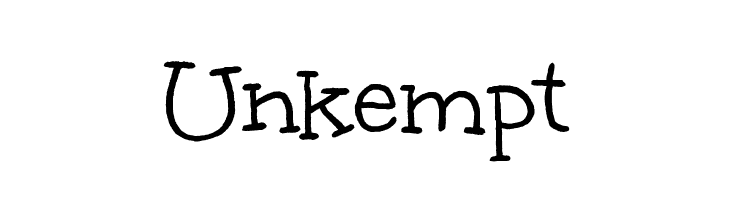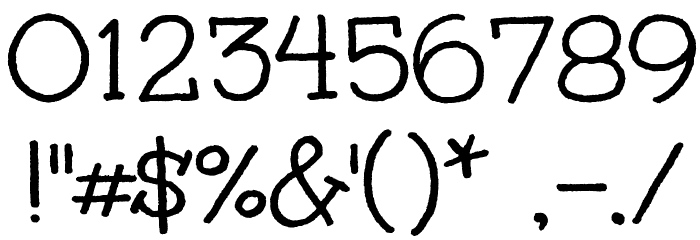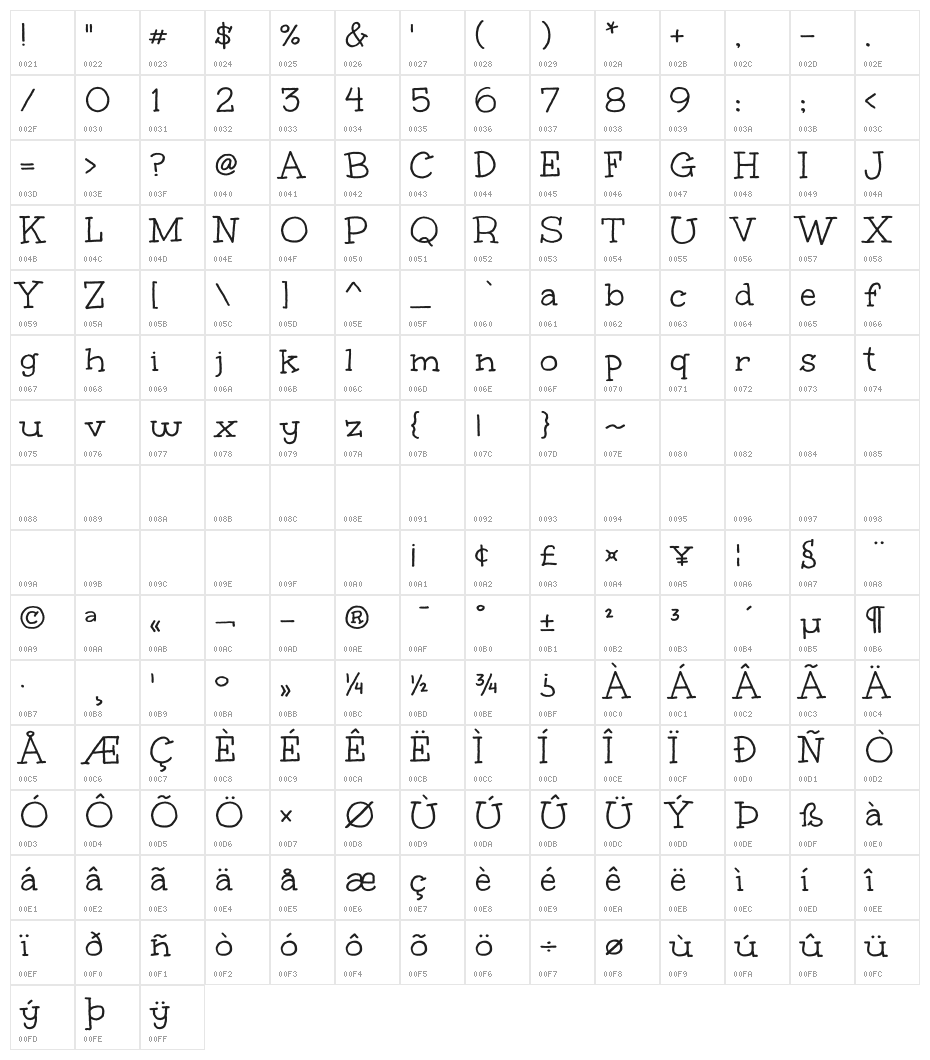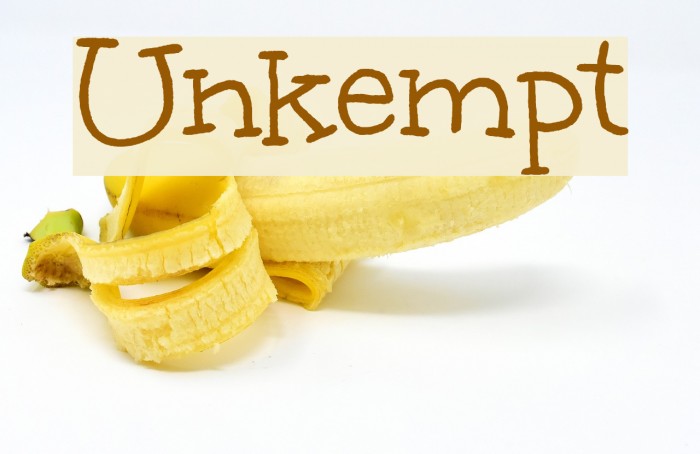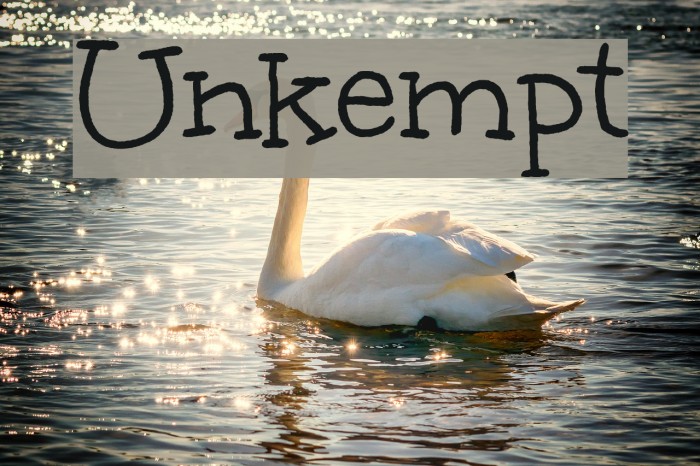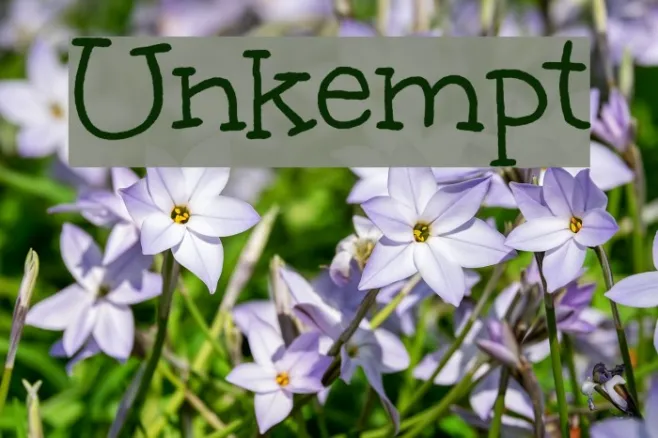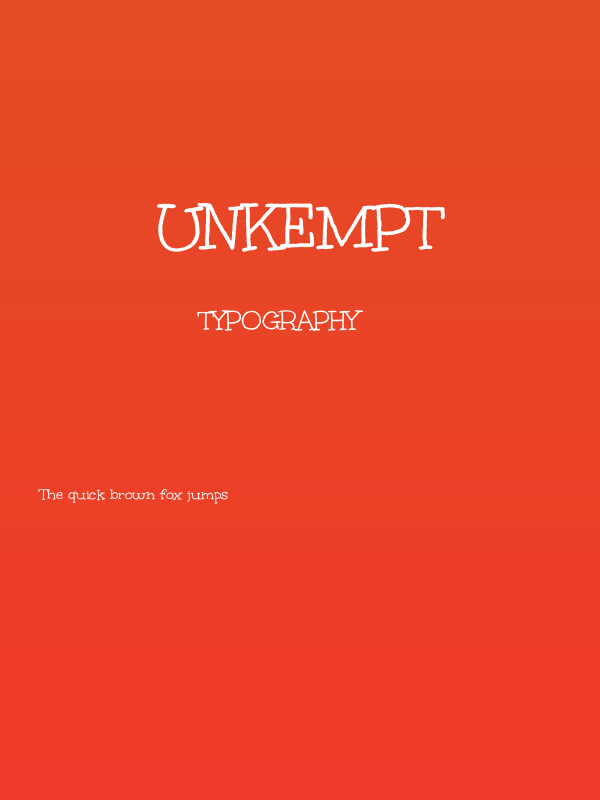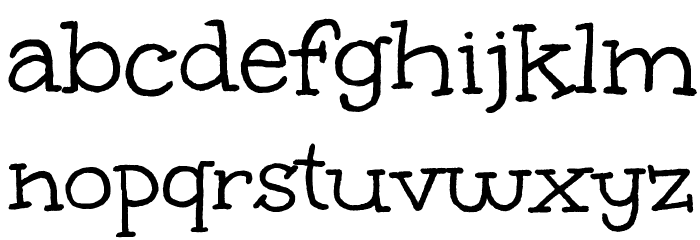
Unkempt Font
Unkempt Description
This font exudes a playful and informal vibe with its hand-drawn, slightly irregular letterforms. Each character has a unique, whimsical quality, giving it a casual and approachable appearance. The strokes are uneven, adding to the font's charm and making it ideal for projects that require a personal touch. The uppercase and lowercase letters maintain a consistent style, while the numerals and special characters blend seamlessly with the overall design. Its quirky nature makes it suitable for creative and fun applications.
| Proposed Projects | Ideal for children's books, greeting cards, casual branding, and creative posters. |